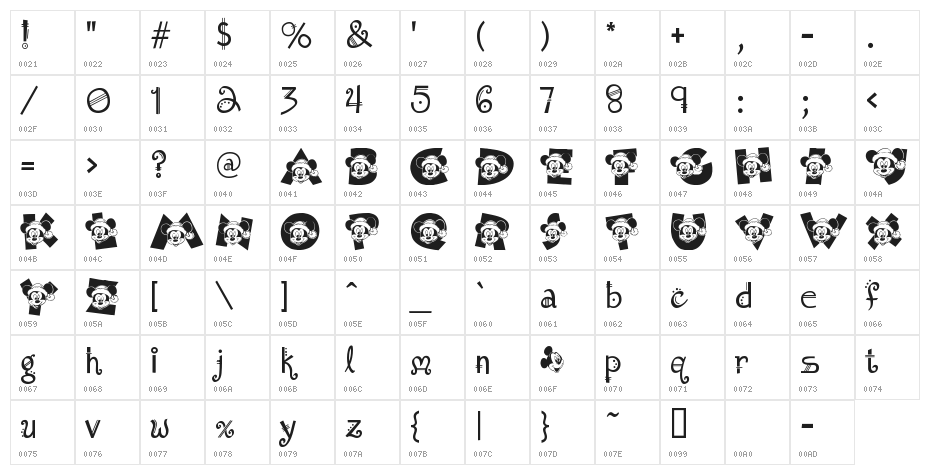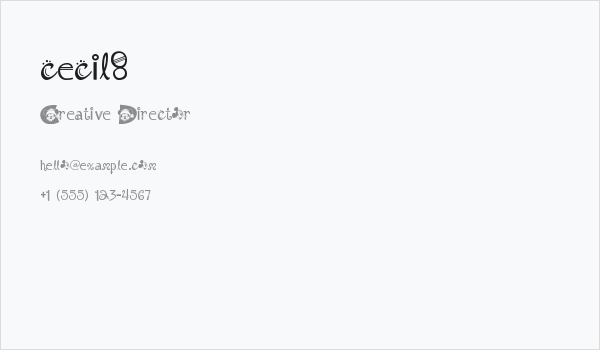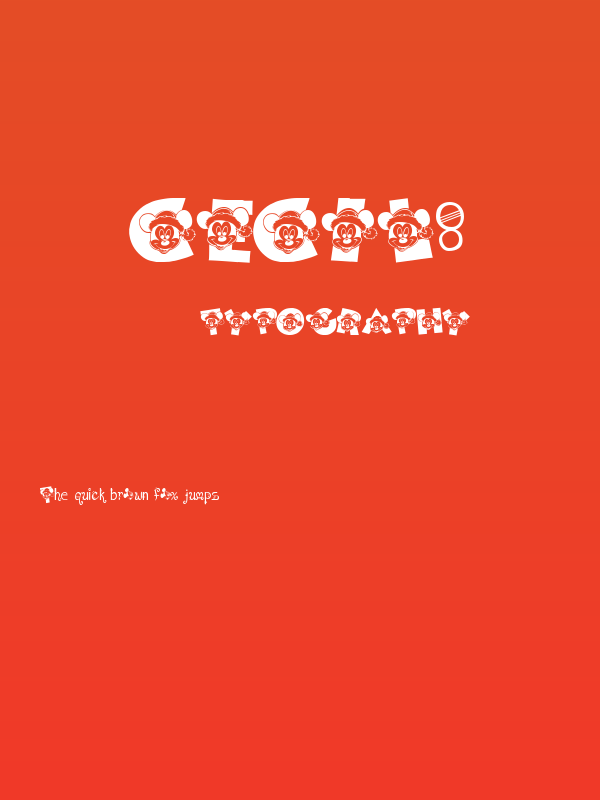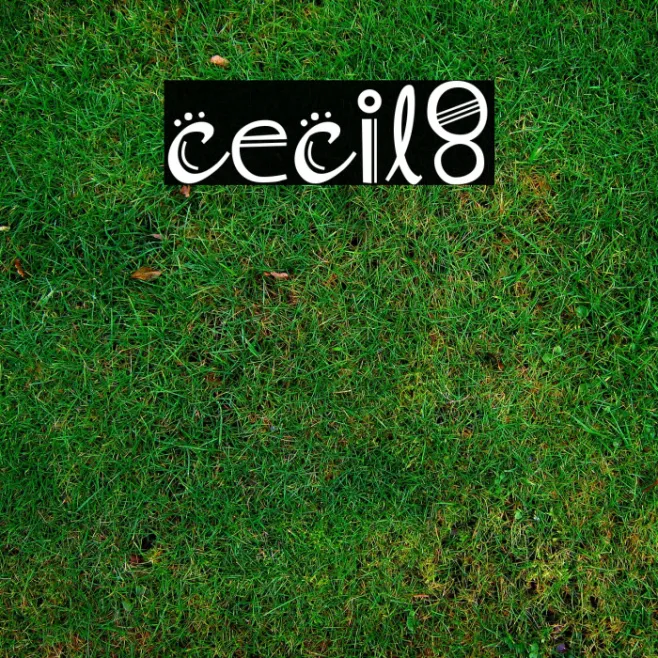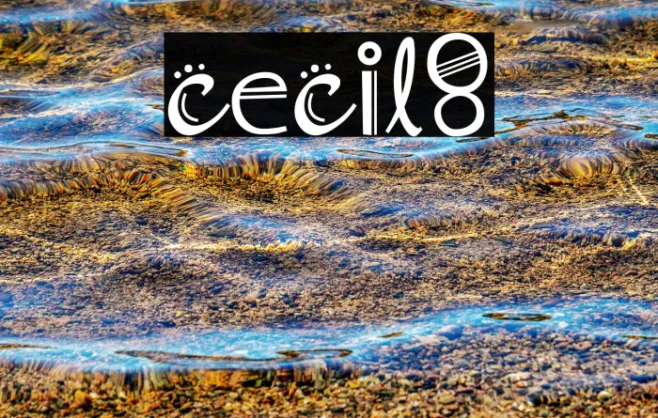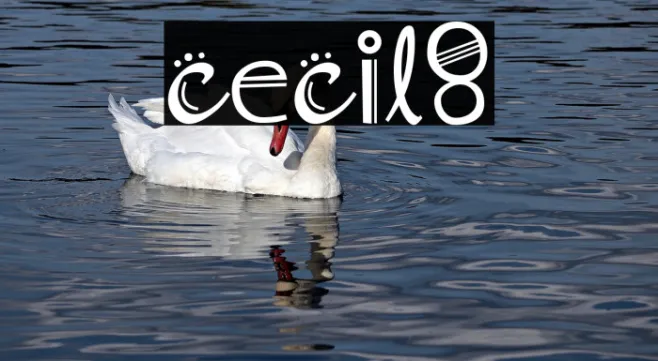
cecil8 Font
cecil8 Description
This decorative font features playful and whimsical elements, incorporating iconic cartoon imagery within the letterforms. The uppercase letters are bold and striking, each containing a small character illustration that adds a unique and fun touch. The lowercase letters maintain a similar playful style, with some characters featuring additional decorative elements like dots and swirls. Numbers and special characters continue the theme with creative and imaginative designs. This font is perfect for projects that aim to capture a sense of nostalgia and fun, appealing to both children and adults. Its bold and decorative nature makes it ideal for eye-catching designs.
| Proposed Projects | Ideal for children's books, themed party invitations, playful branding, and merchandise designs. |